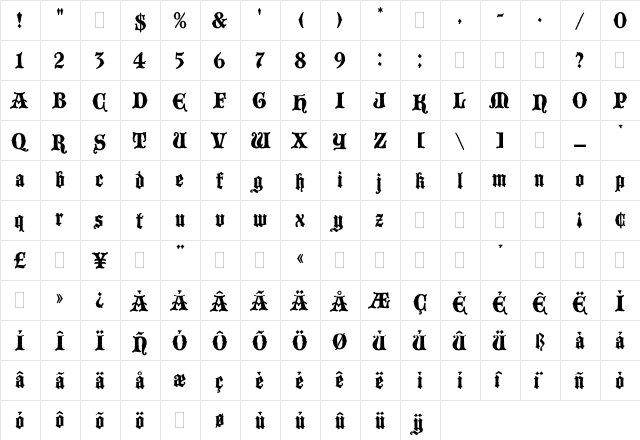
BlackmoorPlain Regular Font Preview
BlackmoorPlain Regular
Design Context for BlackmoorPlain Typeface
BlackmoorPlain is a composed and adaptable typeface that performs quietly and consistently across a wide range of design contexts.